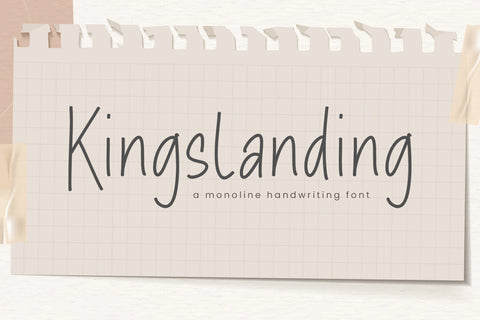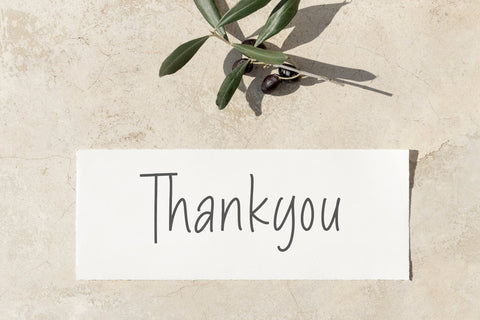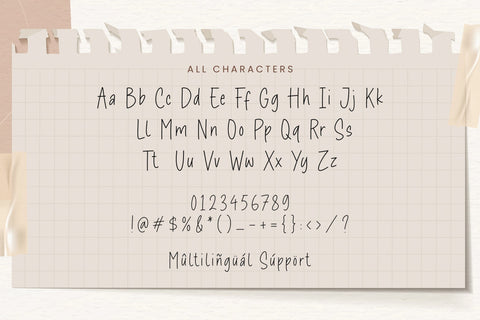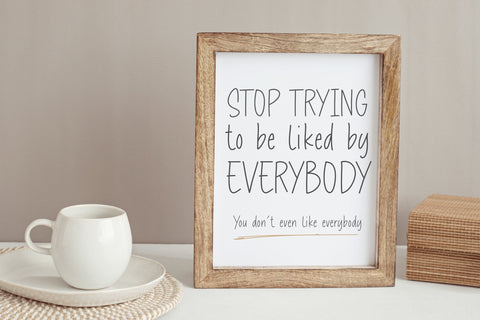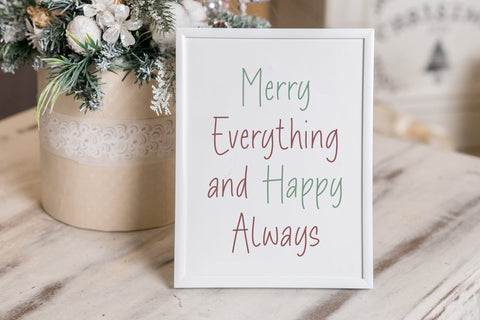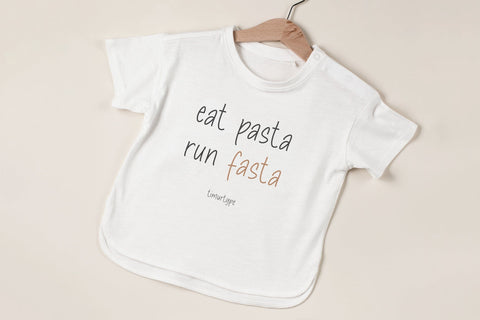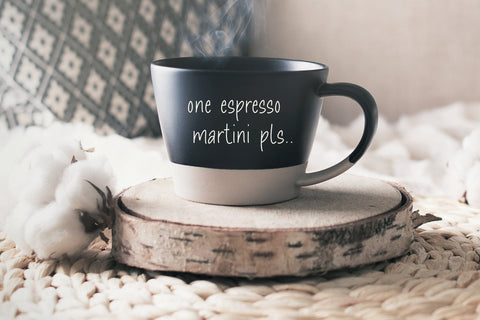
Kingslanding - Handwritten font
Proudly Present, Kingslanding
Kingslanding - Handwritten font , which was created with great care and specially created for you
Kingslanding is perfect for product packaging, branding project, megazine, social media, wedding, or just used to express words above the background.